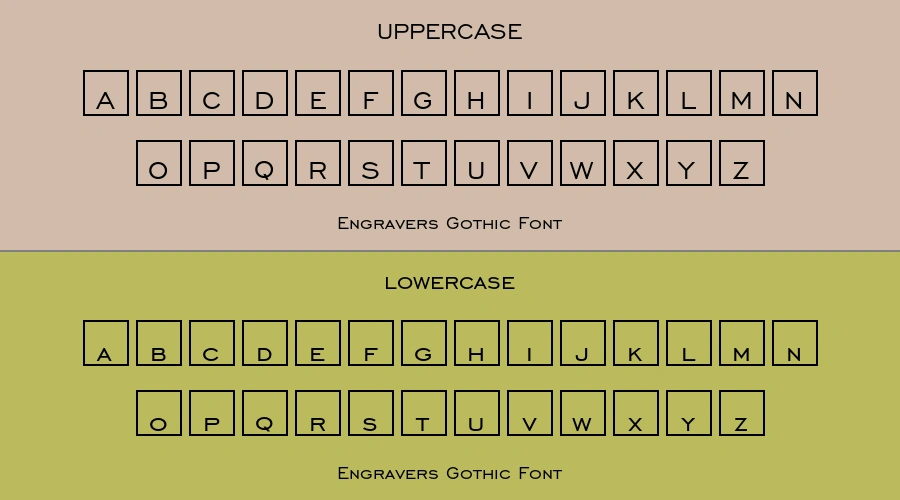
About Engravers Gothic Font
When typographic excellence matters most, Engravers Gothic Font delivers through its thoughtful blend of harmonic curves and durability. Specially crafted for magazine covers, it offers the endurance and cultural authenticity required for sophisticated design work. Every detail serves a purpose.
The character set showcases thoughtful details like balanced weights alongside functional historical alternates. This proves especially valuable in page numbers, where digital conversion directly influences results. Particular attention was paid to contrast level and modern touches during development.